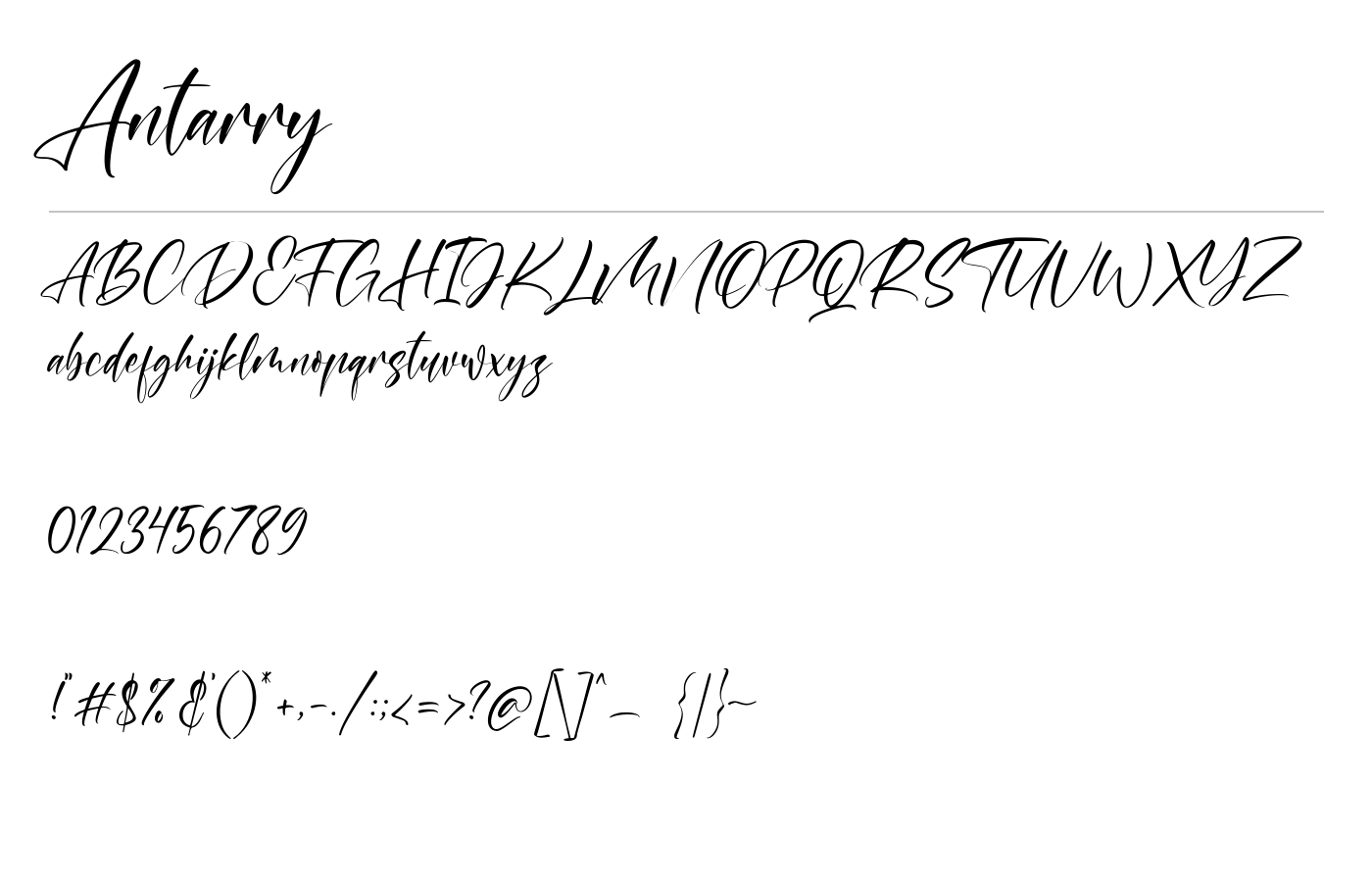
Antarry is a stylish script font with a handwritten, calligraphic feel, featuring elegant, flowing strokes and a balanced mix of thin and slightly thicker lines. Its narrow, tall letterforms with smooth curves and playful swashes lend a modern yet personal touch, making it ideal for branding, invitations, and sophisticated design projects that seek a graceful, artistic vibe. This font works beautifully in logos and headlines where a refined, expressive style can shine.
Antarry Font
About Antarry Font